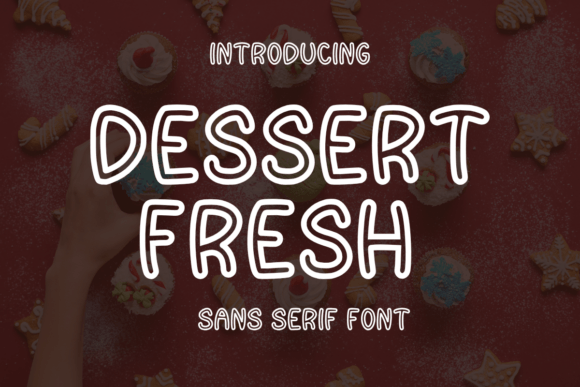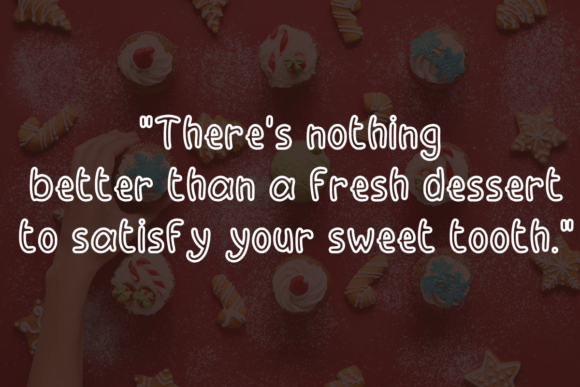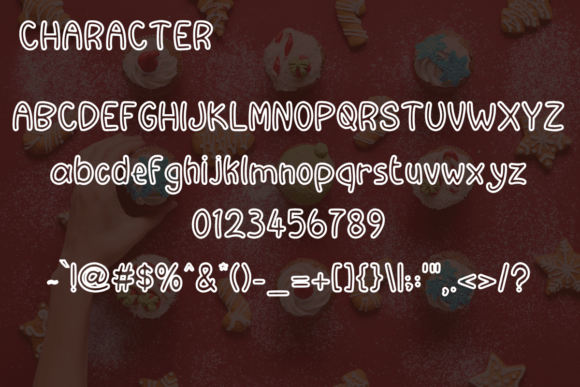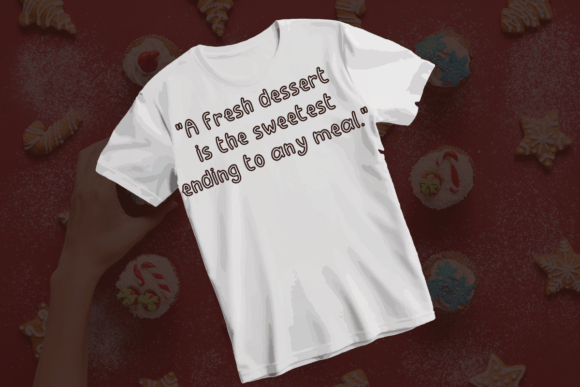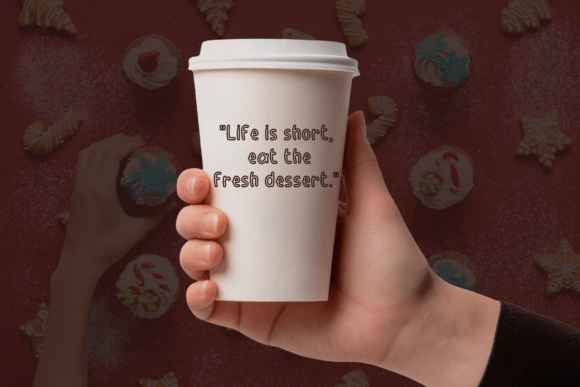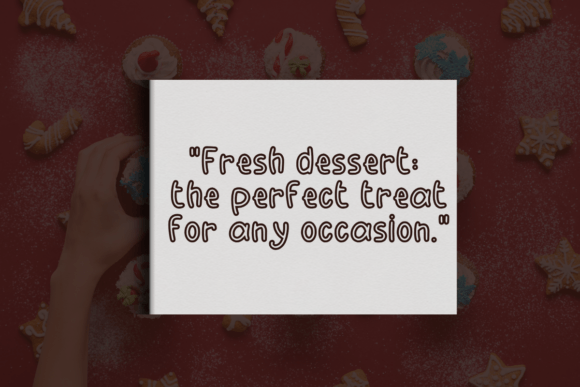
Bring Your Creative Ideas to Life with the Perfect Font
You know that feeling when you’re brainstorming ideas and suddenly, everything comes together in a flash of creativity? The colors, the textures, the typography – it all just clicks. For many designers, that moment is the key to unlocking a truly unique and captivating design. And, at the heart of it all, is the perfect font.
Enter the Dessert Fresh Font, a delightful sans serif font that’s as versatile as it is charming. Whether you’re working on a memo, journal, or planner, this font is the perfect companion to bring your creative ideas to life. With its playful and modern feel, it’s no wonder that designers are raving about the Dessert Fresh Font – and for good reason. It’s a game-changer for any project that requires a touch of whimsy and personality.
- Unique Characteristics: Features a modern, clean design with a focus on desserts and food-related icons
- Font Weight: 5 weights (Thin, Light, Regular, Bold, Black) for versatility in design
Dessert Fresh Font Review
Overall, I found the Dessert Fresh Font to be a delightful addition to any design project, especially those related to food and baking. Here are some of its strengths: ✨
- Playful and whimsical design that evokes feelings of sweetness and indulgence
- Wide range of weights and styles, allowing for flexibility in use
- Perfect for branding and advertising related to the food industry
- Lack of support for certain languages, which may limit its global appeal
- Not ideal for use in formal or professional settings, due to its playful nature
Despite these limitations, I found the Dessert Fresh Font to be a great choice for the right project. Its unique design and versatility make it a standout option for designers looking to add a touch of whimsy to their work. With some careful consideration of its limitations, I would highly recommend this font to anyone looking to create a sweet and memorable design.
Tips for Getting the Most Out of Dessert Fresh Font
– Use in combination with bright, pastel colors for a playful look.
– Emphasize key text with bold or italic styles.
– Experiment with different font sizes for visual interest.
– Bakery and dessert shop branding.
– Food blog and recipe websites.
– Social media graphics and advertising.
Alternatives to Dessert Fresh Font
Great Vibes Font is a modern, cursive font suitable for headings, titles, and short paragraphs. It’s ideal for use in social media, branding, and advertisements. This font has a more playful feel compared to Dessert Fresh Font, which makes it perfect for creative projects.
Comparison: Great Vibes Font has a more casual and relaxed feel, whereas Dessert Fresh Font is more elegant and sophisticated.
Pacifico Font is a beautiful, elegant script font perfect for use in wedding invitations, branding, and packaging. It’s ideal for those looking for a more refined and luxurious feel. This font has a more refined and polished look compared to Dessert Fresh Font, which makes it suitable for high-end projects.
Comparison: Pacifico Font has a more sophisticated and elegant feel, whereas Dessert Fresh Font is more playful and modern.
Playfair Display Font is a luxurious, high-end font perfect for use in branding, titles, and headings. It’s ideal for those looking for a more opulent and sophisticated feel. This font has a more dramatic and elegant look compared to Dessert Fresh Font, which makes it suitable for high-end projects.
Comparison: Playfair Display Font has a more luxurious and opulent feel, whereas Dessert Fresh Font is more elegant and sophisticated.
Carolyna Pro Font is a modern, elegant script font perfect for use in branding, titles, and headings. It’s ideal for those looking for a more refined and sophisticated feel. This font has a more refined and elegant look compared to Dessert Fresh Font, which makes it suitable for high-end projects.
Q: What is the recommended font size and line height for optimal readability with the Dessert Fresh Font?
For optimal readability, we recommend using a font size between 12-18 points and a line height of at least 1.2-1.5 times the font size. This will ensure that the text is clear and easy to read, especially in digital formats.